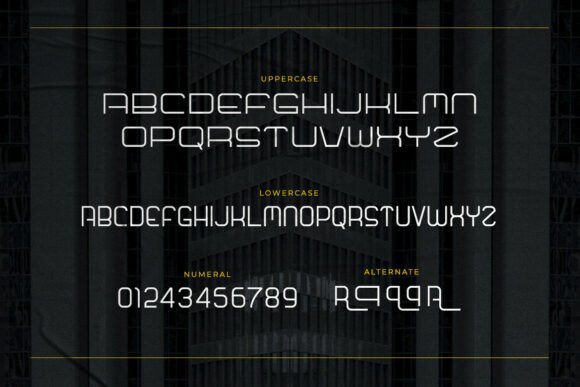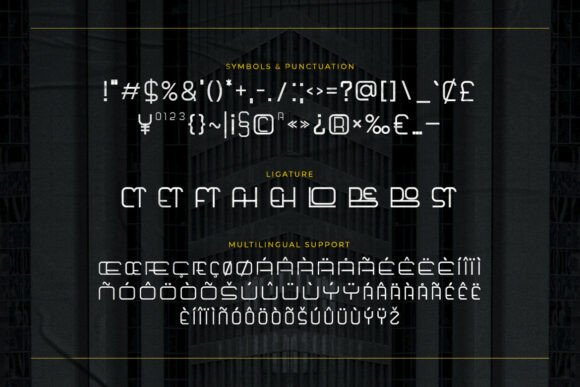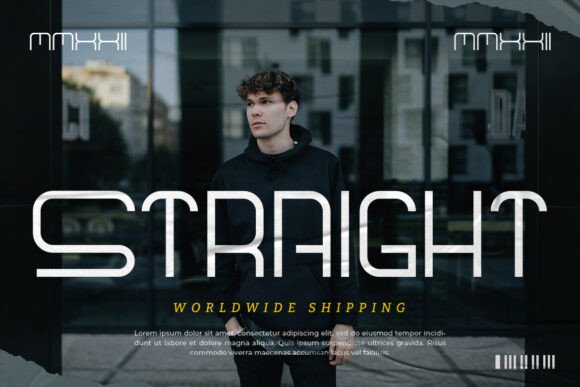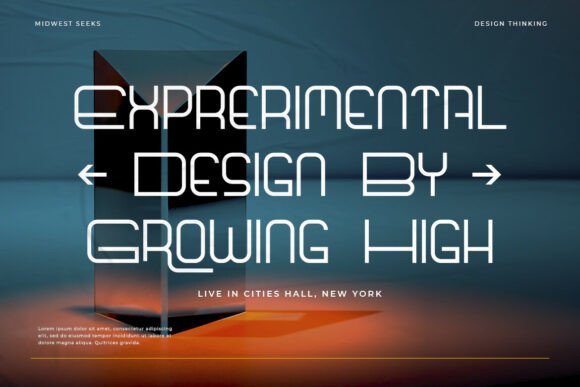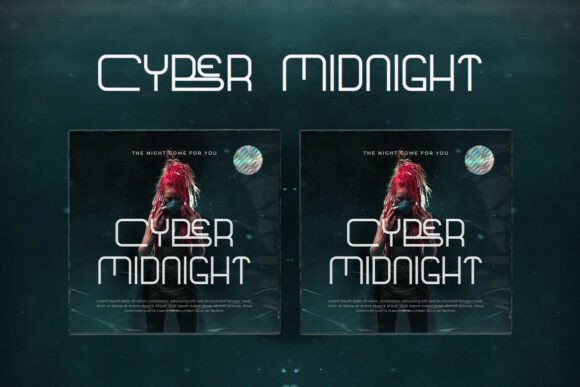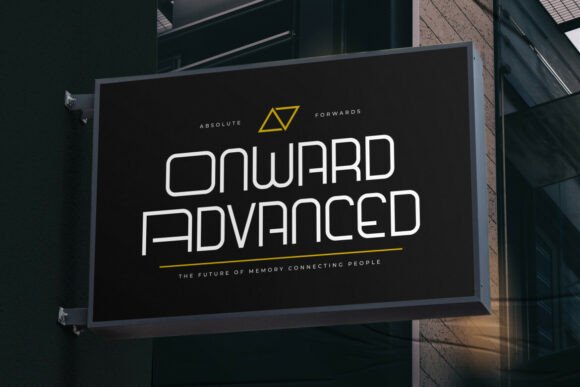
Introduction to Bolong Font
Bolong is a futuristic mixed-width sans serif typeface designed with smooth monoline strokes and rounded corners.
The letterforms combine geometric curves with extended horizontal structures, creating a distinctive technological and modern appearance The mixed width concept gives Bolong a unique rhythm in headlines and display compositions, making it suitable for futuristic branding, technology themes, posters, and digital design projects.